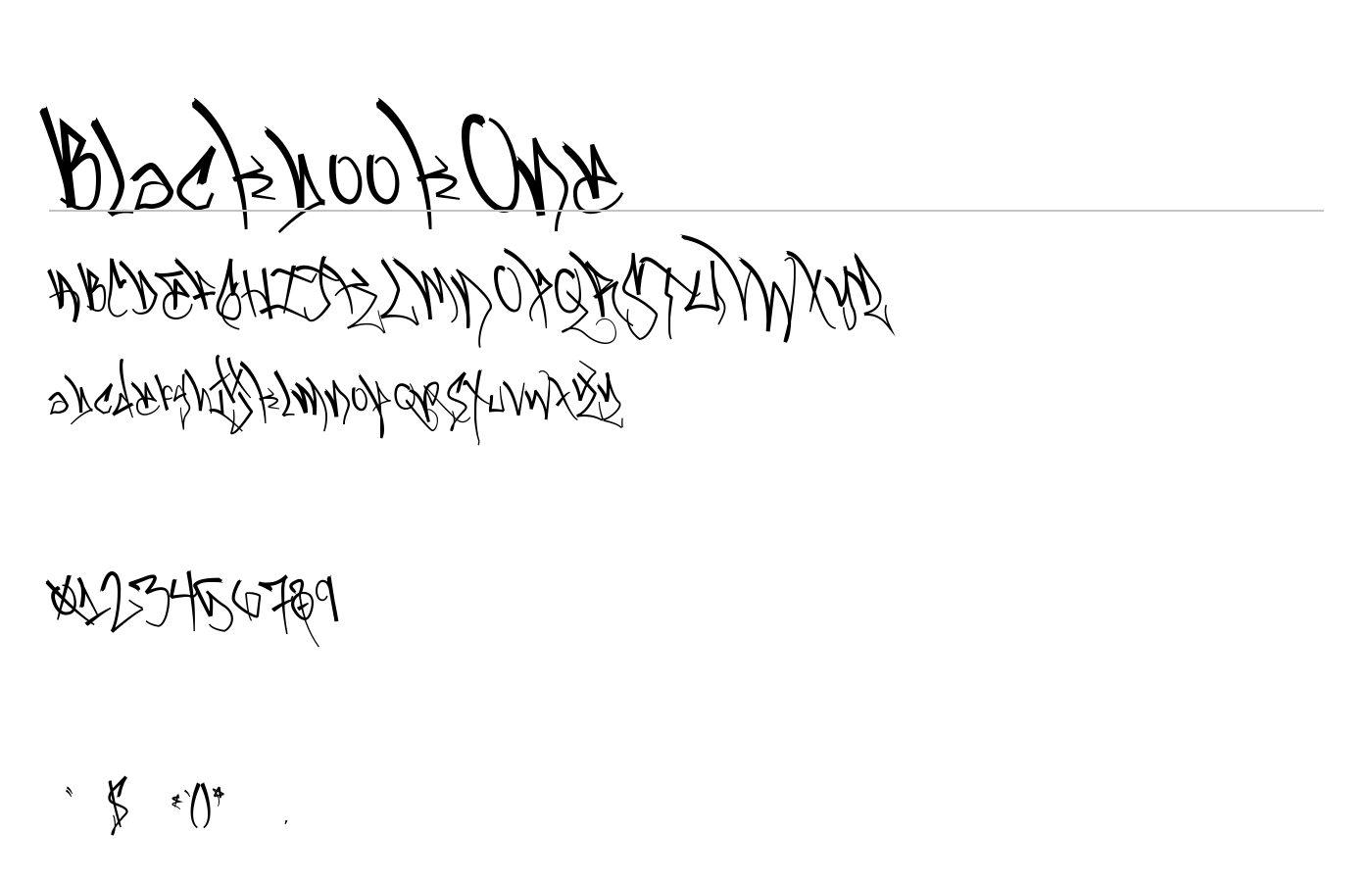
BlackbookOne is a highly stylized, expressive handwritten font that mimics the bold, edgy look of graffiti tagging. Its sharp, irregular strokes and dynamic letterforms create an urban, rebellious vibe, making it perfect for street culture designs, music posters, or any project that wants to convey raw energy and creativity. This font works best in large display sizes where its chaotic, artistic character can truly stand out.
BlackbookOne Font